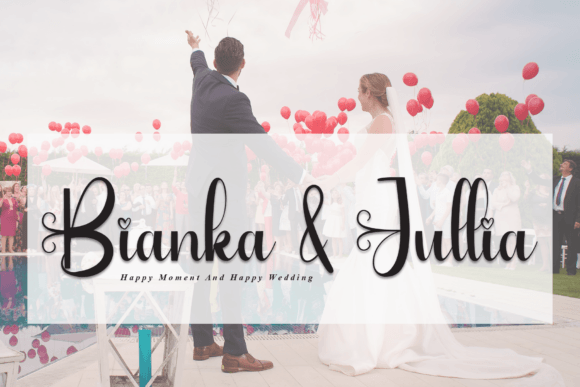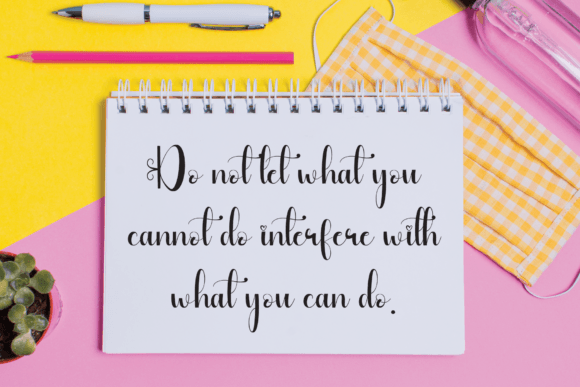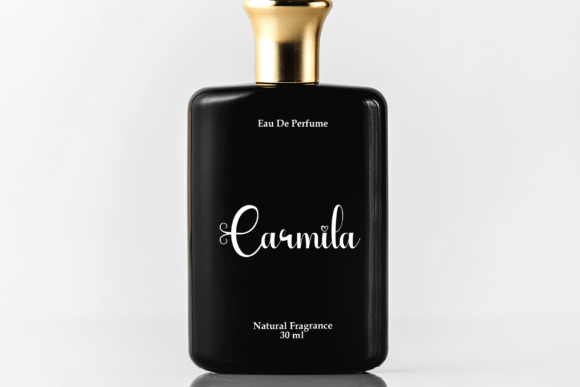
Introduction to Snoowtree Font
Immerse yourself in the charming allure of this inviting hand-scripted display font.
With its delightfully warm and personable nature, this unique typeface holds the uncanny ability to enrich designs with an enchanting sprinkle of fun Be it endearing wedding invitations or a diverse array of cards, the alluring versatility of this font will infuse your design needs with a cheerful, whimsical touch that leaves an unforgettable impression.
Key Features of Snoowtree Font
Why Choose Snoowtree Font?
Snoowtree Font offers exceptional quality and versatility, making it a valuable addition to your design toolkit. Whether you’re creating for personal projects or commercial use, Snoowtree Font delivers professional results.